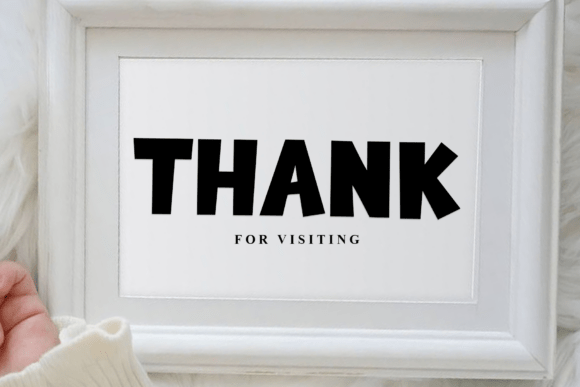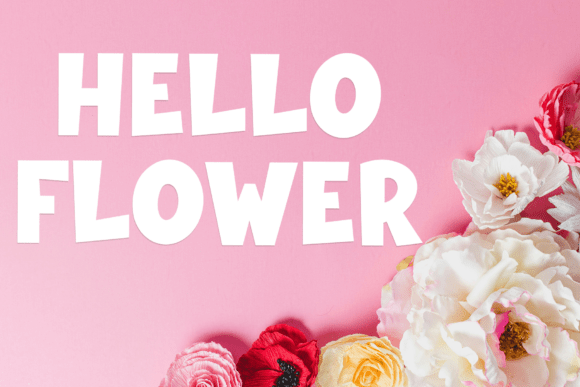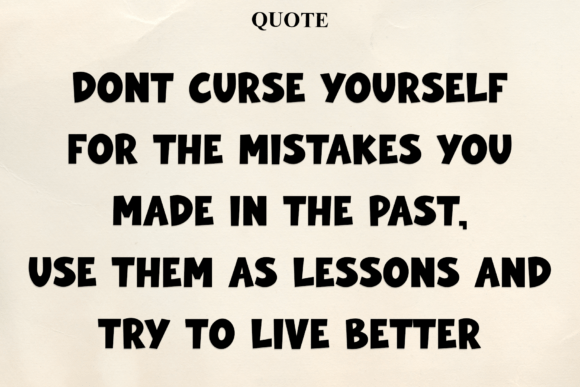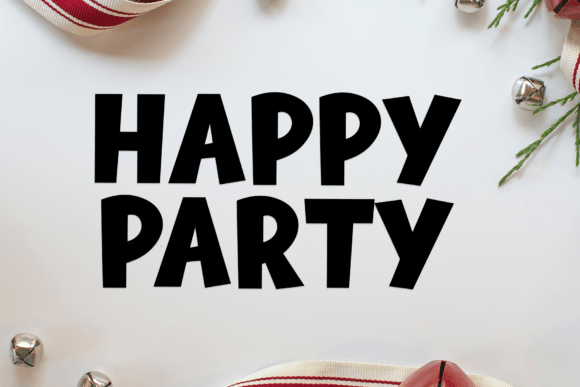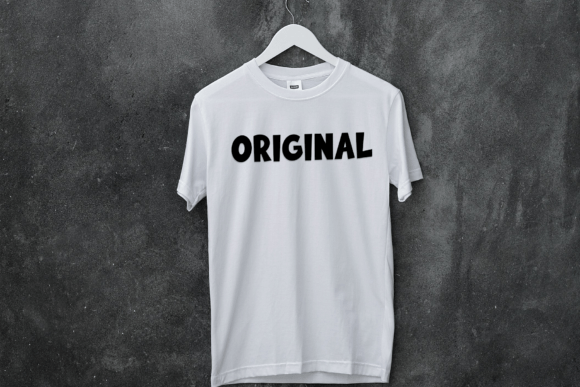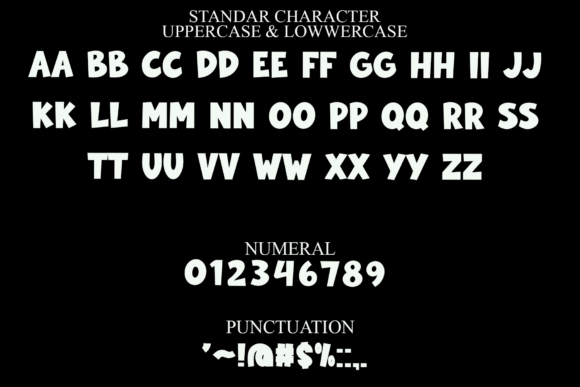
Embracing the Charm of Hand-Drawn Design
Have you ever stumbled upon a font that makes you feel like you’re scribbling in a notebook, surrounded by warm coffee and good company? For many designers, this is exactly the kind of creative moment that sparks inspiration. When the right font comes along, it can elevate a design from mere functionality to a true work of art.
Enter the Bold Quality Font, a casual and creative typeface that embodies the warmth and friendliness we all strive for in our designs. This charming font is perfect for personal projects, invitations, and social media graphics, where a touch of personality can make all the difference. With its round, playful strokes and hand-drawn aesthetic, the Bold Quality Font is a valuable addition to any designer’s toolkit.
Bold Quality Font Key Features
- Unique Characteristics: The Bold Quality Font features a unique blend of modern and classic design elements, with a distinctive bold weight that makes it perfect for headings and titles.
Bold Quality Font Review
Overall, I’m impressed with Bold Quality Font, but as with any font, it has its strengths and weaknesses. Let’s dive in.
- High contrast: The font’s bold lines and clear letterforms make it easy to read, even at small sizes.
- Good legibility: Bold Quality Font’s design ensures that text remains clear and easy to understand.
- Versatility: It’s suitable for both digital and print media, making it a great choice for various design projects.
- Limited expressiveness: While the font is bold and clear, it can feel a bit rigid and lacking in personality.
Overall, I’d say Bold Quality Font is a solid choice for designers who need a clear, bold font. While it may not be the most exciting option, it gets the job done and is easy to use.
Bold Quality Font is ideal for:
- Emphasizing important information
- Creating visually appealing designs